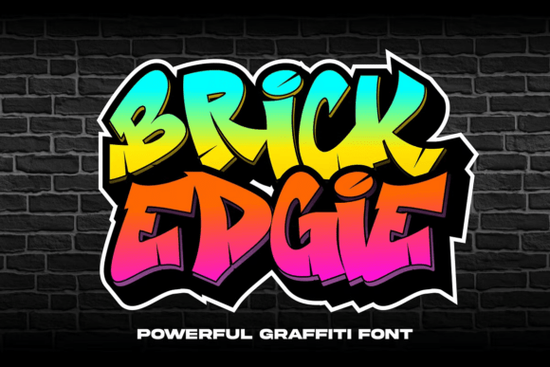
If you’ve been searching for a font that brings the grit and energy of street art to your projects, Brick Edgie Font might be exactly what you need. It’s got those sharp, chiseled edges and an unapologetic attitude that makes headlines pop and posters feel alive. Whether you’re designing merch, social media graphics, or signage for a local event, this font doesn’t whisper it shouts.
What makes Brick Edgie stand out is how well it balances boldness with readability. You don’t have to sacrifice clarity for style, which is rare in graffiti-inspired typefaces. That’s why it’s become a favorite among print-on-demand sellers who want their designs to grab attention without looking cluttered. If you liked the urban vibe of Graffiti City, you’ll find Brick Edgie even more versatile for layered compositions or distressed textures.
Who actually uses this kind of font?
It’s not just for murals or skate shops. Small business owners use it for eye-catching sale banners. Crafters pair it with vinyl cutters to make custom tumblers or tote bags that feel street-smart but still polished. Designers working on album covers, zines, or festival posters lean into its raw character to match the mood of their project. Even educators creating classroom decor for older students find it adds personality without being childish.
One thing to note: while it’s bold, it’s not overwhelming. The letterforms are spaced thoughtfully, so you can stack lines or mix sizes without losing legibility. Try pairing it with something clean like Departure Board for contrast the combo works surprisingly well for flyers or packaging labels.
How do I know if this fits my project?
Ask yourself: Are you trying to communicate energy, rebellion, youth culture, or urban flair? If yes, Brick Edgie will likely serve you better than a standard sans-serif. But if your brand voice is minimalist, corporate, or serene, you might want to look at something smoother maybe even check out Homegoing for a warmer, more grounded alternative.
Also consider your medium. This font shines in large formats think posters, T-shirts, signage, or digital thumbnails. It’s less ideal for body text or tiny product tags unless you’re going for intentional impact over readability. Test it at different sizes before committing to a full design.
Can I customize it or layer effects?
Absolutely. Because of its strong outlines and open counters, Brick Edgie holds up well when you add shadows, glows, or texture overlays. Many users import it into Procreate or Photoshop and roughen the edges slightly to mimic spray paint drips or concrete wear. Others drop in halftone patterns behind the letters for that vintage punk flyer look.
If you’re building a bundle or themed collection, try mixing it with Retro Groovy Bundle for a 70s-meets-street-art mashup. The contrast between flowing groovy curves and Brick Edgie’s angular punch creates visual tension that draws the eye perfect for music events or limited-edition drops.
Is it beginner-friendly?
One tip: avoid using all caps for long phrases. The font’s strength is in short bursts names, taglines, calls to action. For longer copy, switch to a simpler companion font. And always preview your final output on the actual material or screen size you’re designing for. What looks great on desktop might feel too heavy on mobile.
What should I pair it with?
- For contrast: A thin sans-serif or handwritten script to soften the edge.
- For cohesion: Other display fonts with similar weight, like other urban styles in the same family.
- For nostalgia: Retro slab serifs or distressed typewriter fonts.
Don’t be afraid to break “rules” here. Street art was never about perfection it’s about expression. So if your gut says to tilt the text, add a crackle effect, or overlay a photo of brickwork behind it, go for it. That’s where Brick Edgie really comes alive.